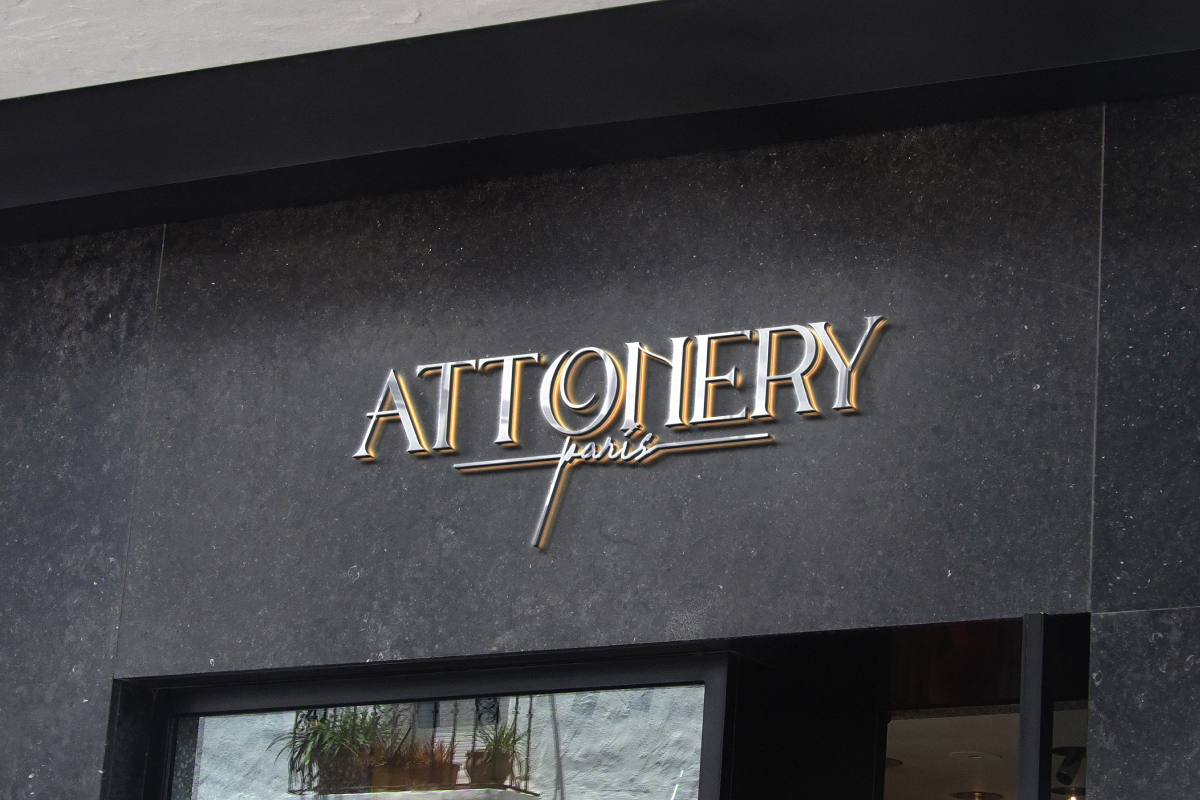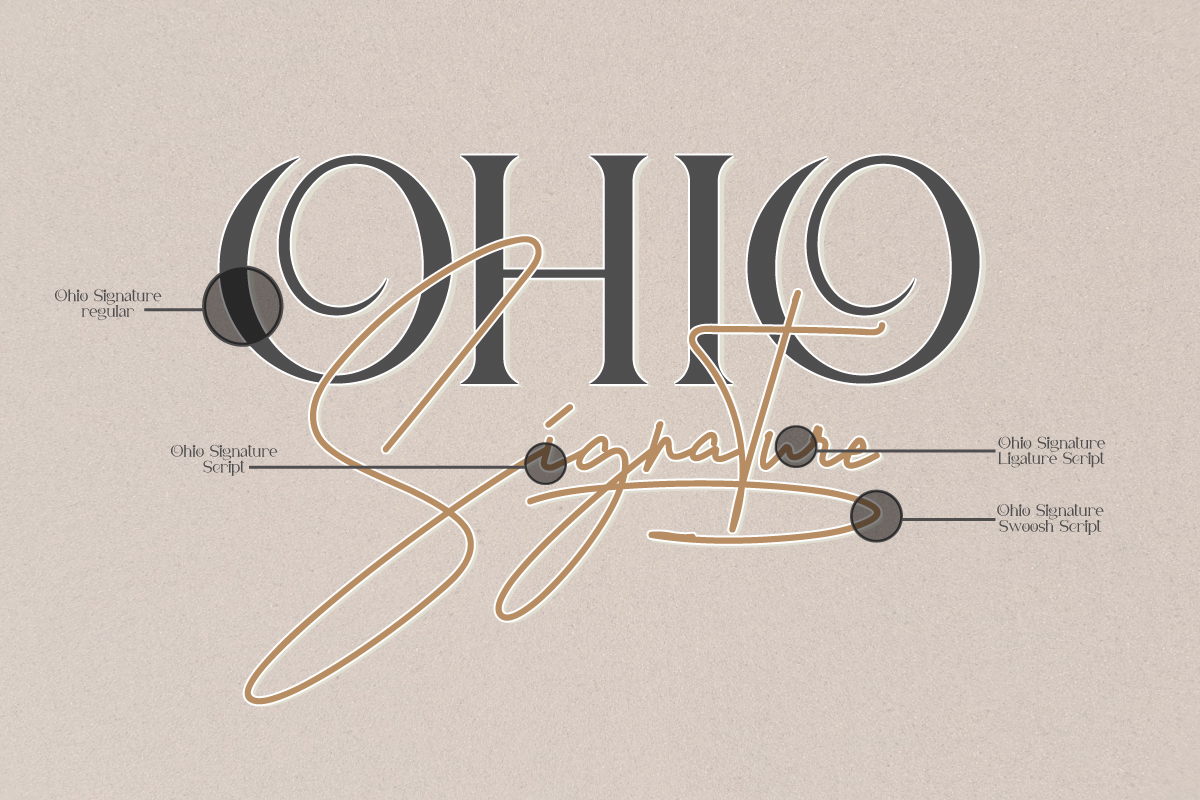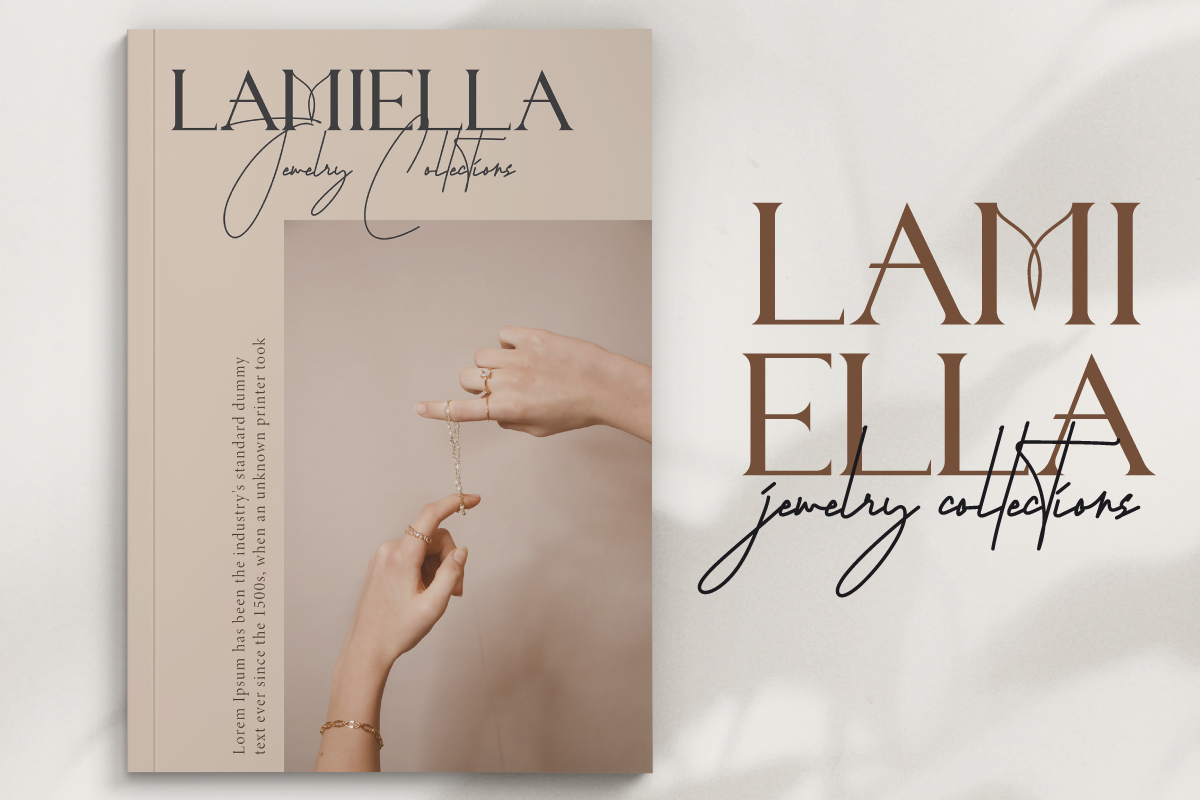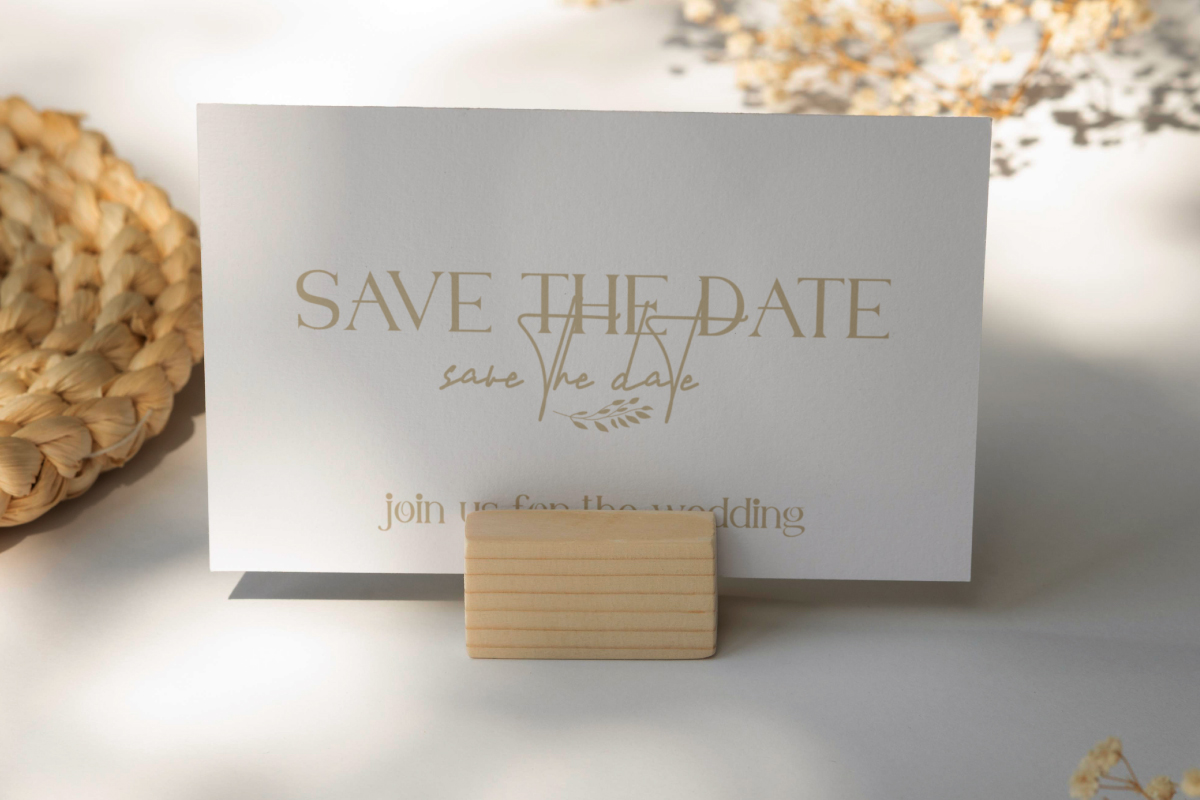
Ohio Signature Font Duo
Ohio Signature Font
This is a new modern font duo from Vintype Studio. This font has two different styles: display serif regular and signature script. The style of the font will bring modern writing looks especially when being combined. These two styles bring antique handwriting while easily to read , wow display serif font and the combination which is absolutely awesome. It will be amazing for any project : home decorate, invitation, product, collection, resort and many more
Ohio Signature Font includes full set of Uppercase and Lowercase Basic Characters, Numerals and Punctuation. Also it contains ligatures to make it flowless characters to perfectly make awesome look that add more aesthetic fonts, to perfect your extraordinary project come on guys!